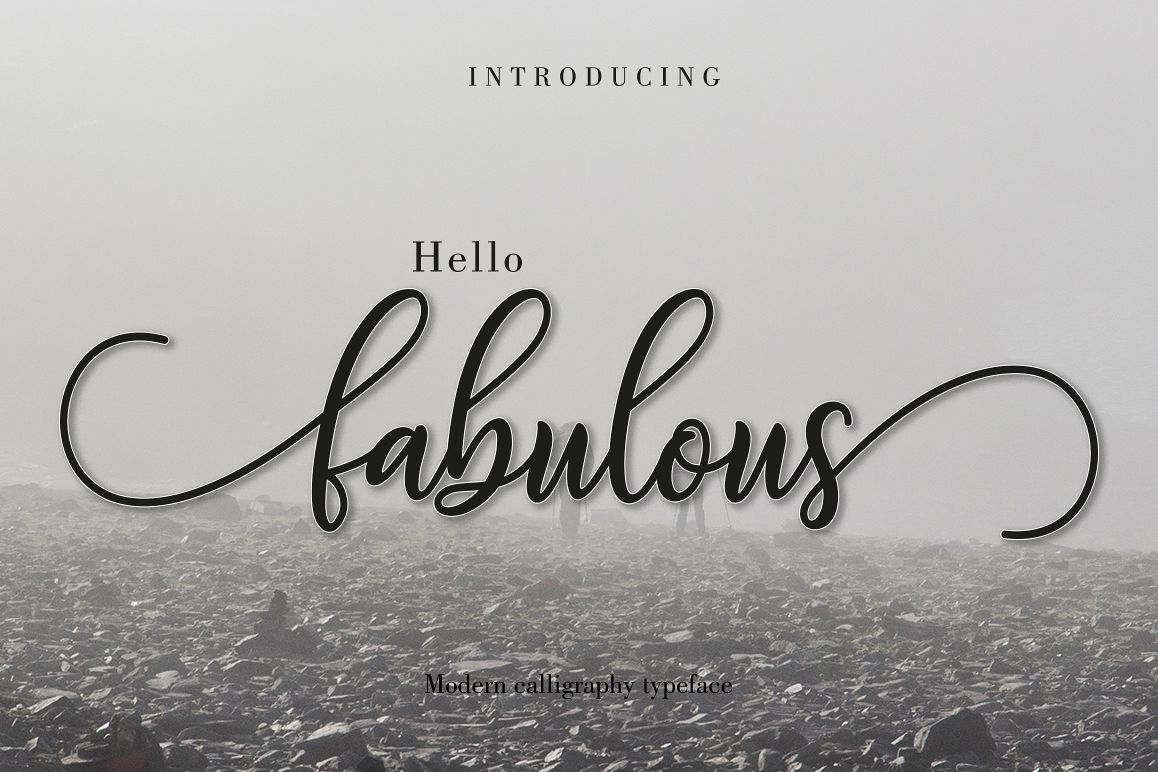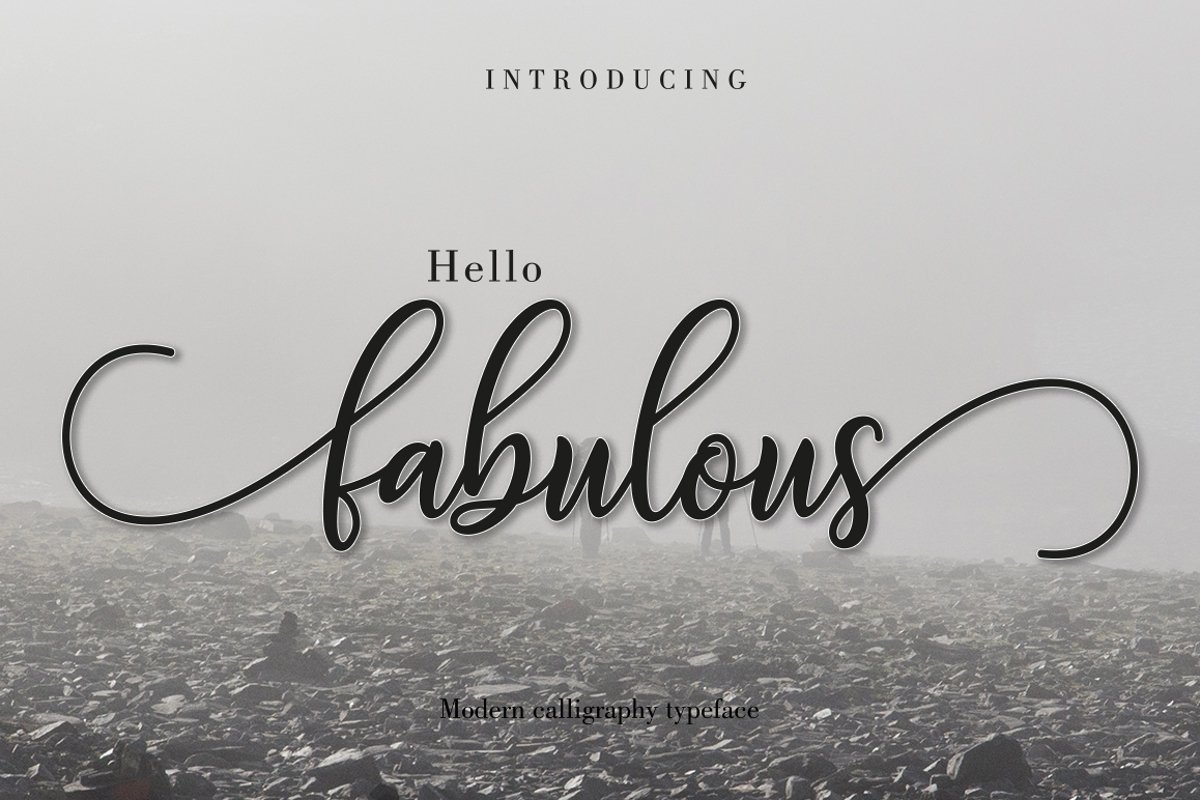
Fabulous Script
Fabulous script come with 350+ glyphs. The alternative characters were divided into several Open Type features such as Swash, Stylistic Sets, Stylistic Alternates, Contextual Alternates. The Open Type features can be accessed by using Open Type savvy programs such as Adobe Illustrator, Adobe InDesign, Adobe Photoshop Corel Draw X version, And Microsoft Word. And this Font has given PUA unicode (specially coded fonts). so that all the alternate characters can easily be accessed in full by a craftsman or designer.